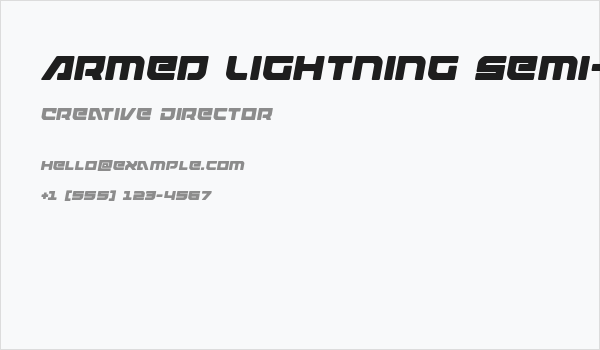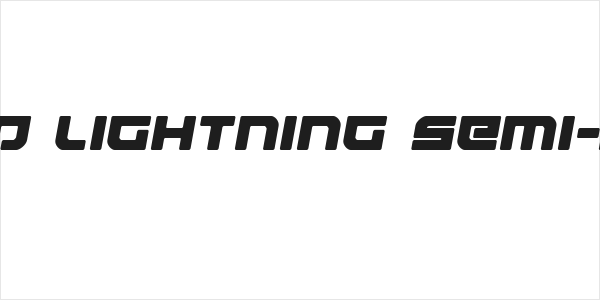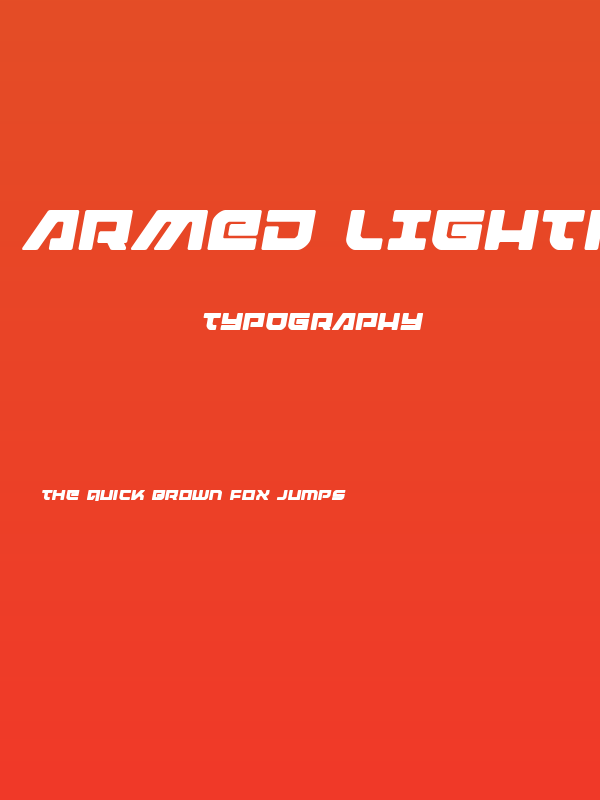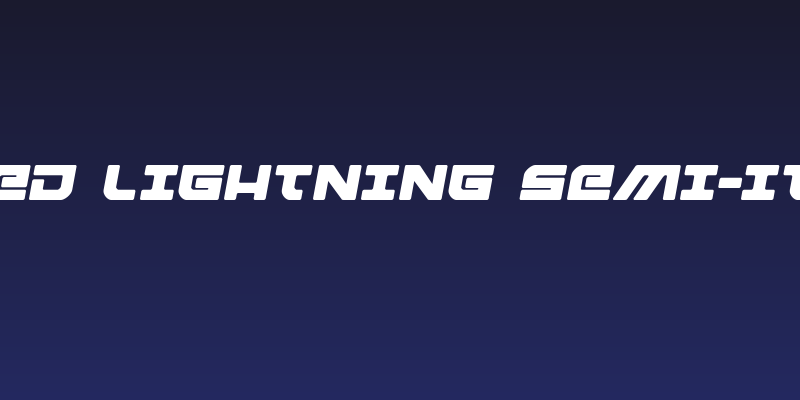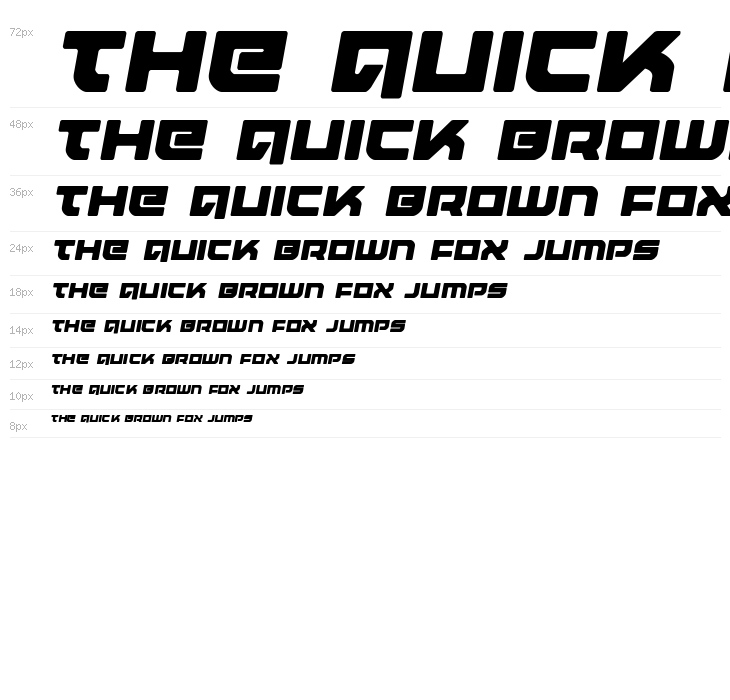
Armed Lightning Semi-Italic Font
Armed Lightning Semi-Italic Description
This font features a bold and dynamic design with a futuristic flair. The characters are slightly italicized, giving a sense of motion and speed. The strokes are thick and consistent, providing a strong visual impact. The geometric shapes and sharp angles contribute to its modern and edgy appearance. The uppercase and lowercase letters maintain a uniform style, while the numerals and special characters are designed to complement the overall aesthetic. This font is ideal for projects that require a bold statement and a contemporary look.
| Proposed Projects | Ideal for branding, sports team logos, video game titles, and sci-fi themed designs. |